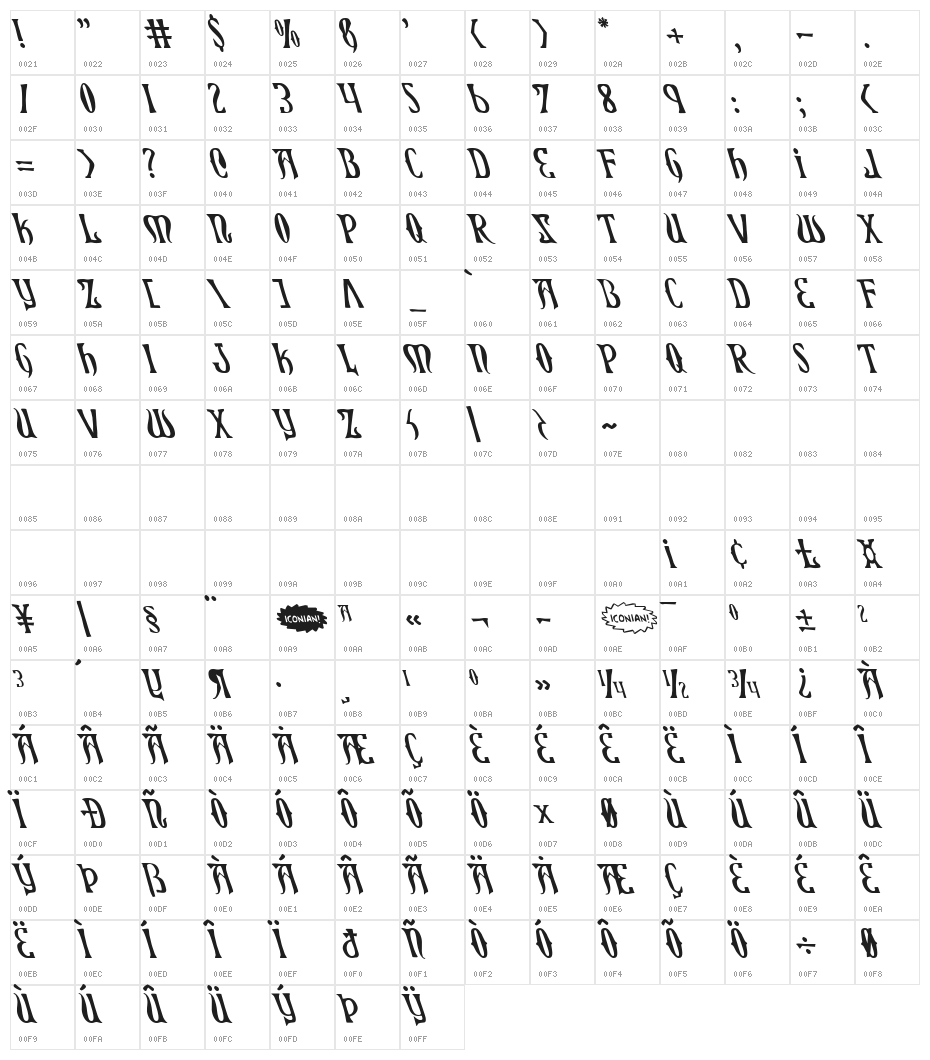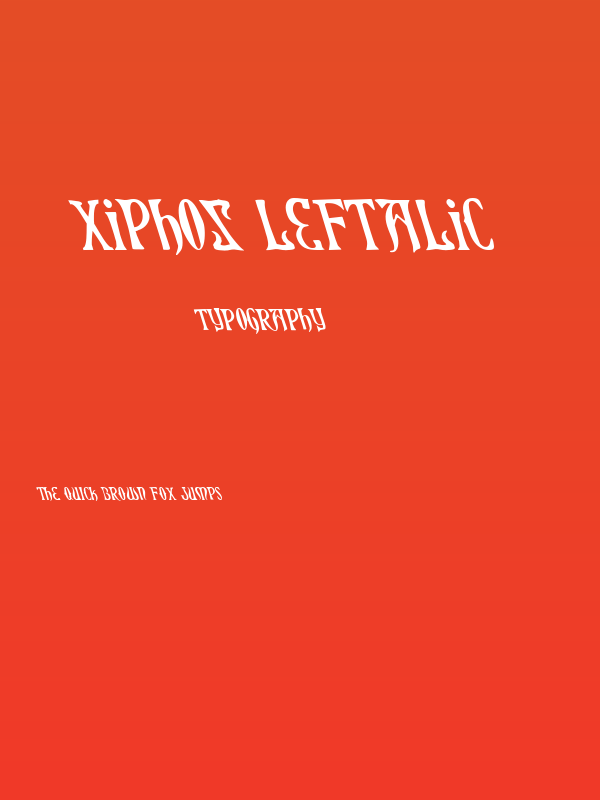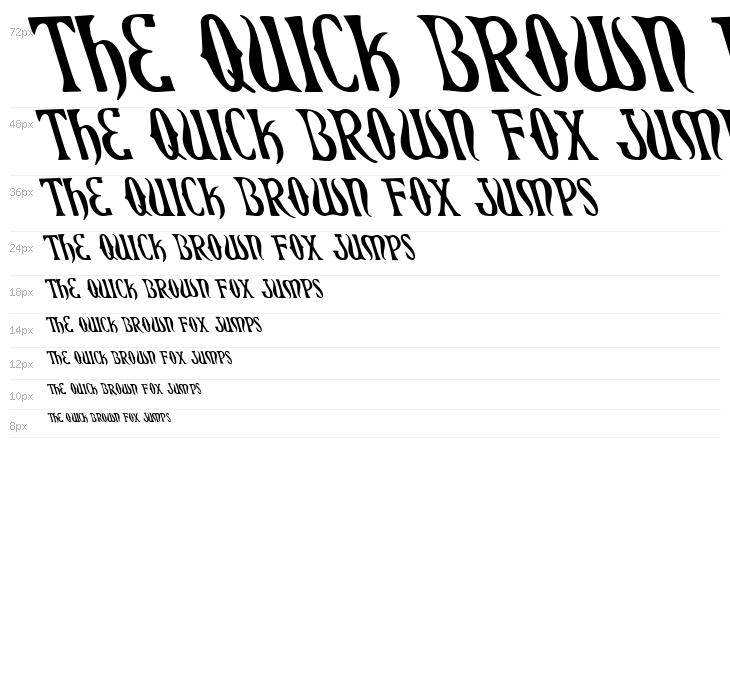
Xiphos Leftalic Font
Xiphos Leftalic Description
This font exhibits a bold and dynamic style with a distinctive slant to the left, giving it a unique and energetic appearance. The characters are crafted with sharp, angular edges and a slightly condensed form, which adds to its striking visual impact. The uppercase and lowercase letters maintain a consistent design, with the uppercase being more pronounced. The numbers and special characters follow the same stylistic cues, ensuring uniformity across all glyphs. This font's high contrast between thick and thin strokes enhances its readability while maintaining an artistic flair.
| Use Case | Logos, Headlines |
| Proposed Projects | Ideal for branding, poster design, and any project requiring a bold, artistic touch. |